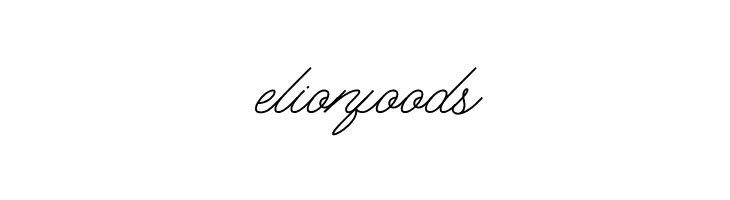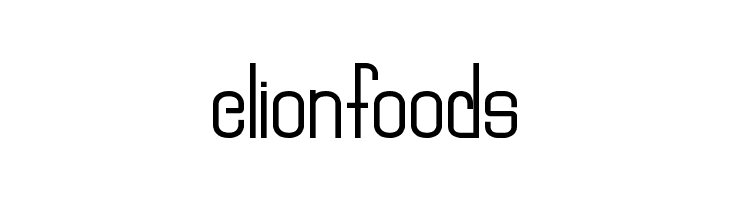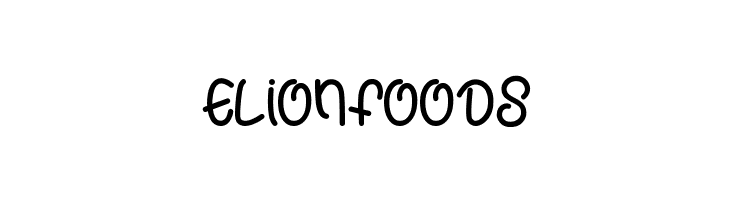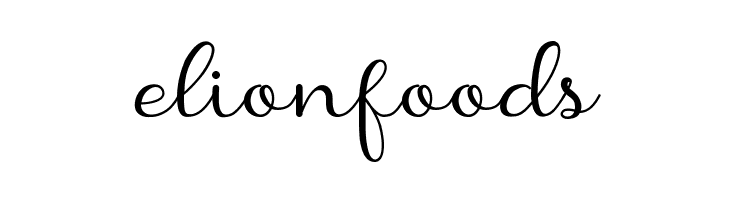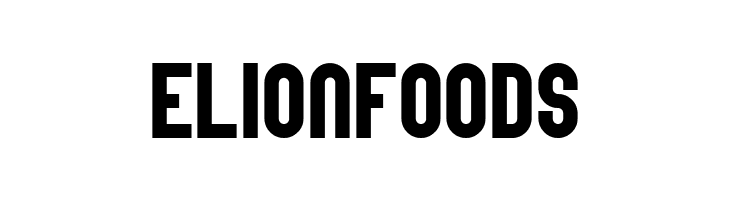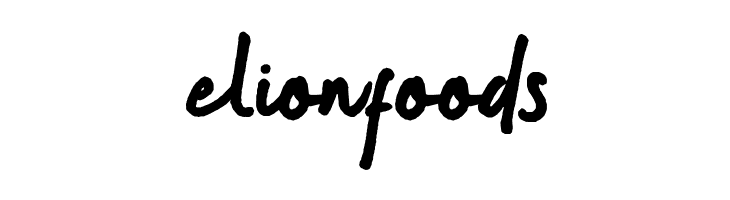
An elegant script font with intricate flourishes and smooth cursive style.
An elegant script font with flowing, interconnected letters and high contrast strokes.
A modern, geometric font with clean lines and a structured form.
A playful handwritten font with smooth curves and a friendly appearance.
A graceful and elegant script font with flowing, cursive letters.
A bold, modern font with a geometric structure and consistent stroke widths.
A decorative font with intricate arrow-like details and slender, uniform strokes.
A bold, playful handwritten font with a textured, energetic style.
A bold, playful font with thick, rounded strokes and a bubbly appearance.
A playful, bold handwritten font with a smooth, flowing style.